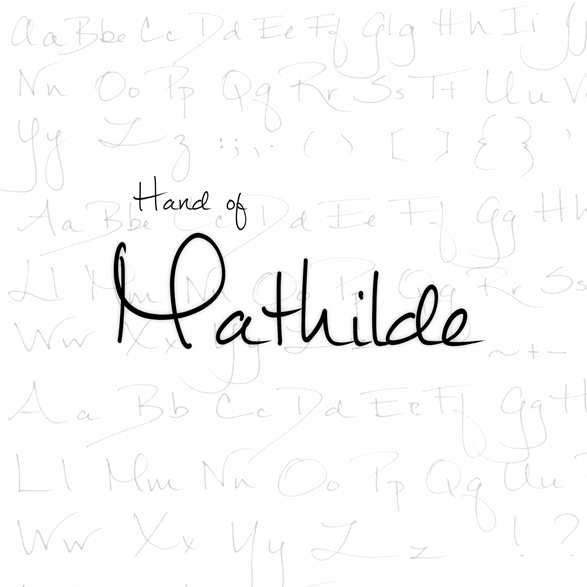
"Mathilde" is a handwritten, cursive/print hybrid typeface that includes accented letterforms, math symbols, as well as opentype contextual alternatives for common double-letter combinations. The font is free for personal as well as commercial use, but donations are always appreciated. Thanks! Update 10/01/2012: Improved font's compatibility with word processors. Added swash characters for letter-forms with very long tails. Update 10/26/2012: Small metrics fix, overlap fix Update 11/28/2012: Added TrueType (.ttf) version and bold style (for $5) on my website, here: http://leeviathan.com/portfolio-item/mathilde-free-handwritten-opentype-font/#content |